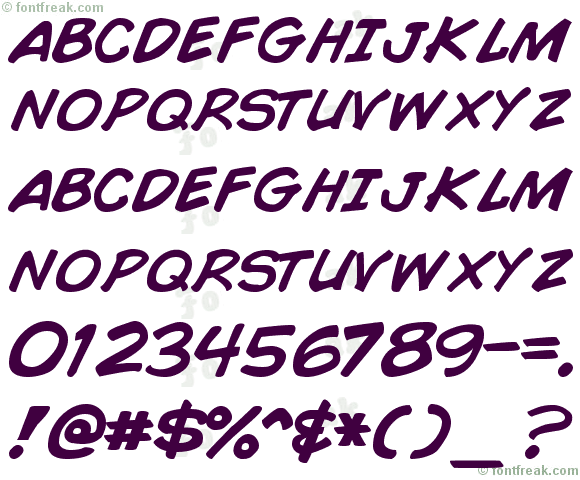
Comic Book
About Comic Book
The Comic Book font by Neale Davidson is a dynamic display typeface that captures the playful essence of comic book art. Designed in 2011, this font exemplifies a bold, informal style that is both engaging and visually striking. The font features thick, rounded strokes complemented by a variable stroke weight that adds a sense of movement and energy, making it perfect for creative projects. The spacing between characters is generous, enhancing readability while maintaining a lively appearance.
This font is ideal for a variety of applications, particularly in the realm of entertainment and youth-oriented design. It works wonderfully for comic book covers, where its playful nature can draw in readers. Additionally, it is highly effective for movie posters, especially those targeting younger audiences or animated features. Graphic designers may find it suitable for creating fun promotional materials for events like comic conventions or gaming expos. Small business owners in the arts and entertainment sectors can also leverage this font for eye-catching signage or branding that resonates with a youthful demographic. Furthermore, content creators looking to add a whimsical touch to social media graphics or YouTube thumbnails will find this font an excellent choice.
The Comic Book font stands out due to its unique combination of boldness and approachability, making it a versatile option for various design needs. Its freeware license allows for easy access, encouraging creativity and experimentation without the worry of licensing fees. For those seeking to infuse their projects with a sense of fun and artistic flair, the Comic Book font free download is an excellent resource that embodies the spirit of comic art and storytelling.